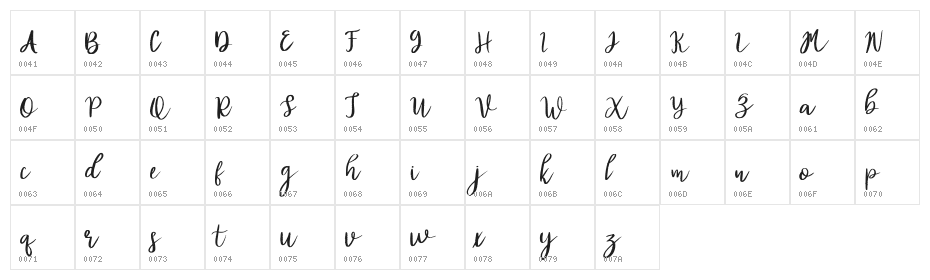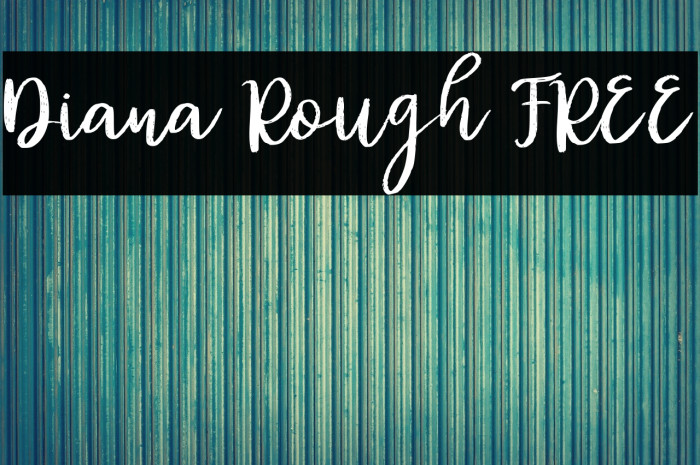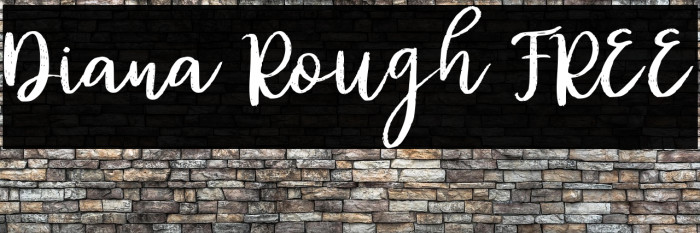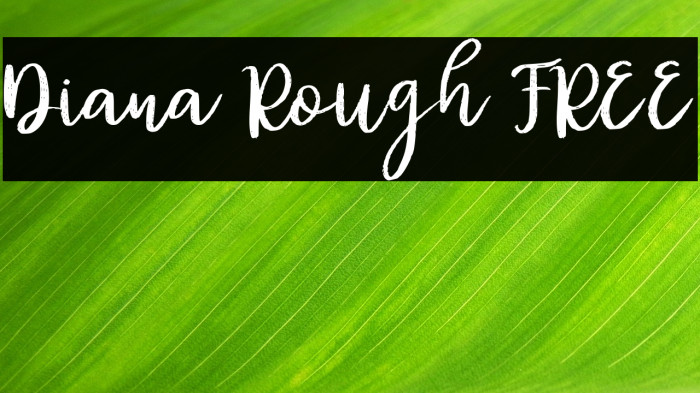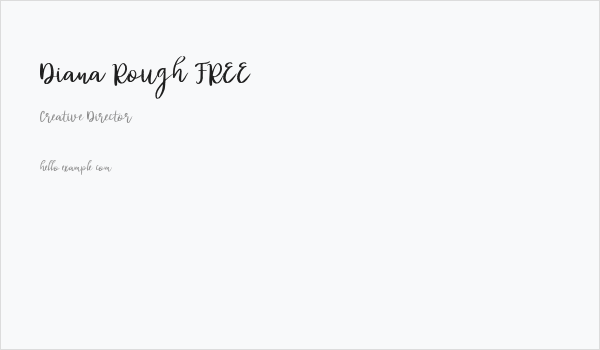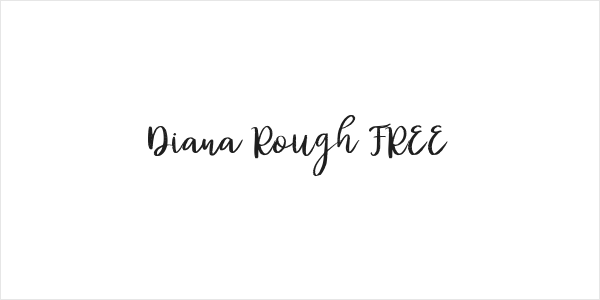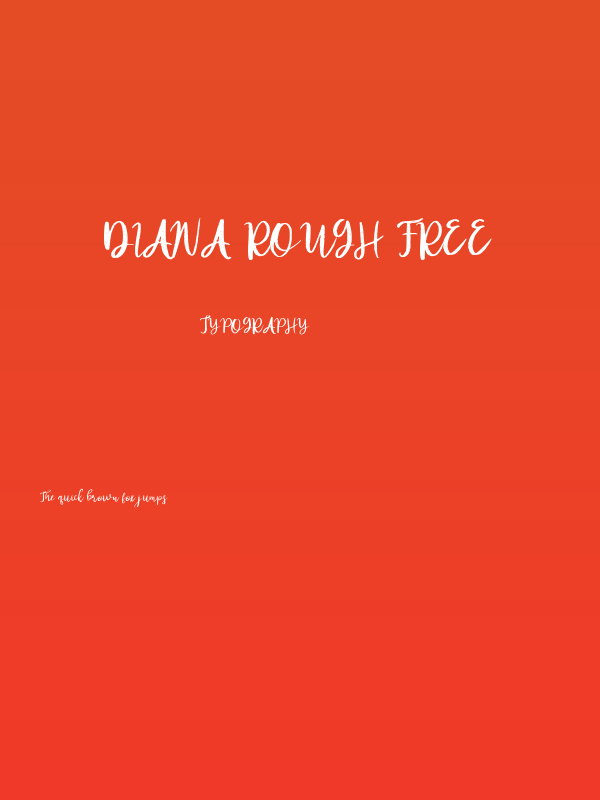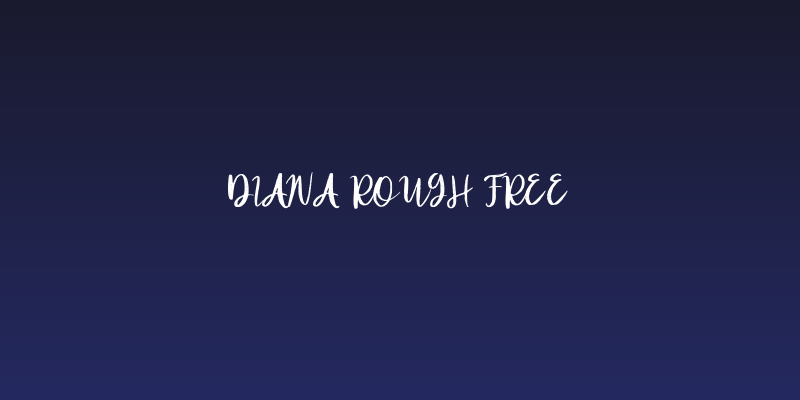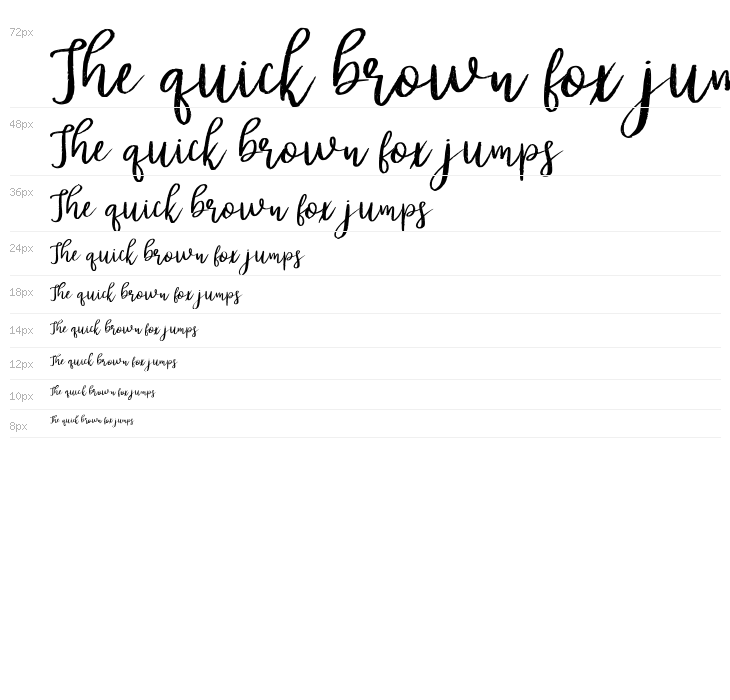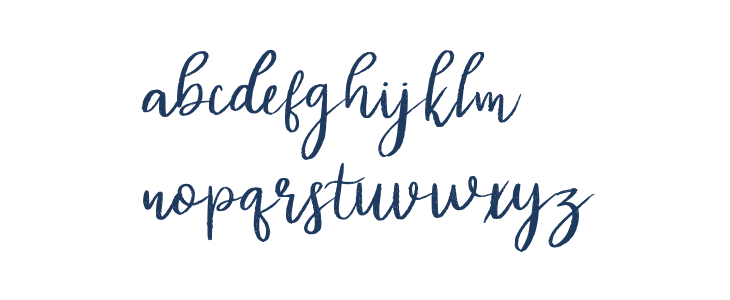
Diana Rough FREE Font
Diana Rough FREE Description
This font exudes a lively and artistic flair, characterized by its bold, brush-like strokes that convey a sense of movement and energy. The letters are crafted with a hand-drawn aesthetic, featuring varying stroke widths that add a dynamic and textured appearance. Each character flows into the next with a fluidity that mimics natural handwriting, making it ideal for projects that require a personal touch. The uppercase letters are bold and prominent, while the lowercase letters maintain a consistent style with slightly more delicate strokes. This font's unique style is perfect for creative projects that aim to capture attention and convey a sense of individuality.
| Use Case | Logos, Headlines, Artistic projects |
| Proposed Projects | Ideal for invitations, greeting cards, branding, and artistic posters. |